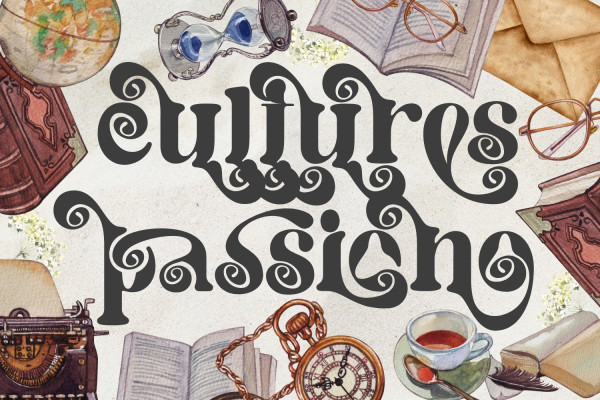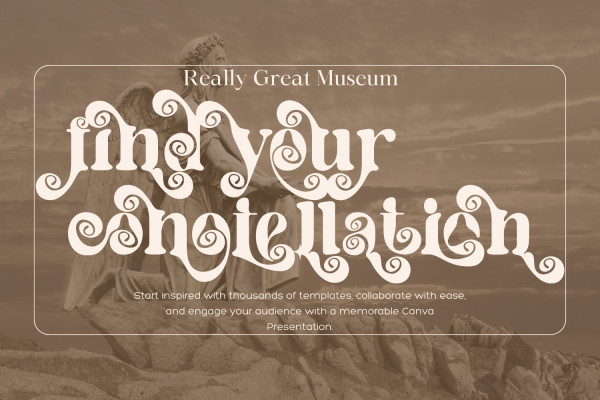
Dilemma Problem Font is a bold retro font with a lot of alternate glyphs. The stylistic alternates and ligatures make this font event more unique and stands from the crowd, with 70s vibe. This font is perfectly match for groovy retro and vintage design. This font is also usable in a wide range of works such as logos, covers, posters, quotes, product packaging, merchandise, social media and much more! Use this font and let your creativity vibing!!
Dilemma Problem was built with OpenType features and includes 100 ligatures, alternate, numbers, punctuation, and it also supports other languages.